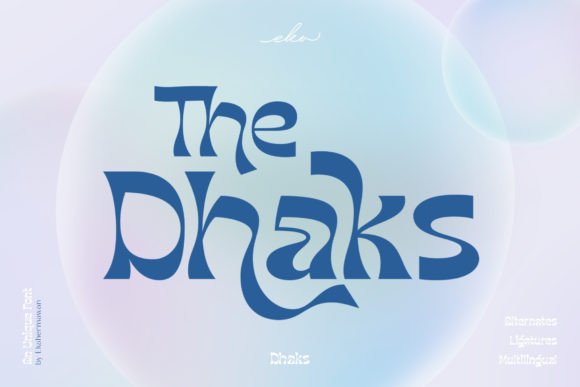
Dive into the world of Dhaks, an exquisite display font family that radiates elegance and uniqueness. With its captivating curves and distinctive personality, Dhaks promises to transform your creative visions into breathtaking realities.
Step into a realm where each character dances with its own distinctive shape, harmonizing perfectly to create an enchanting visual symphony. Dhaks invites you to unleash your creativity, whether you're designing captivating logos, crafting unforgettable branding, or composing posters that leave a lasting impression.
Enrich your magazine layouts with Dhaks' alluring presence, adding a touch of sophistication to your words. Elevate your labels and merchandise designs with its timeless appeal, ensuring that your products stand out in the crowded marketplace. Let Dhaks grace your invitations and presentations, imbuing them with an air of refinement and professionalism.
Harness the power of Dhaks to create advertisements that captivate audiences, leaving an indelible mark on their minds. Express your heartfelt emotions through breathtaking quotes, using Dhaks as your artistic brush to paint a thousand words. The possibilities are limitless, bound only by the depths of your imagination.
Embrace Dhaks and embark on a creative journey where every project becomes a masterpiece. Its versatility knows no bounds, adapting seamlessly to a myriad of design endeavors. Let Dhaks be your secret weapon, transforming ordinary creations into extraordinary works of art that resonate with your audience.